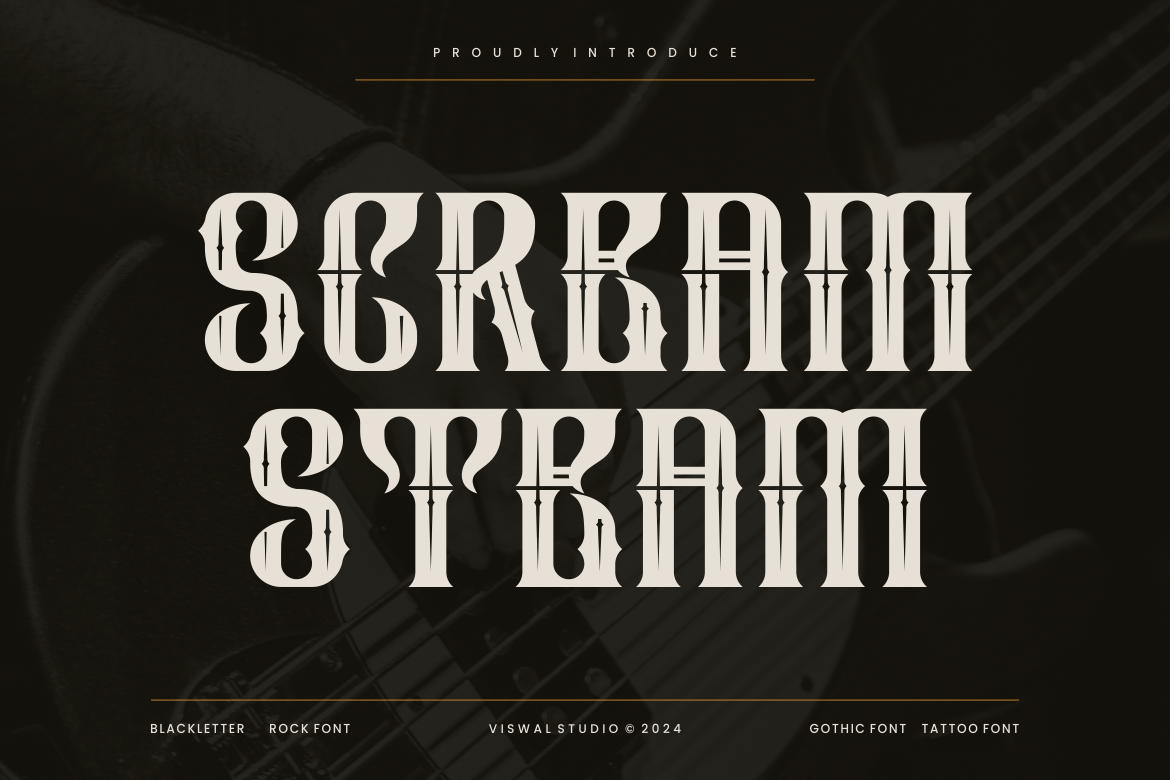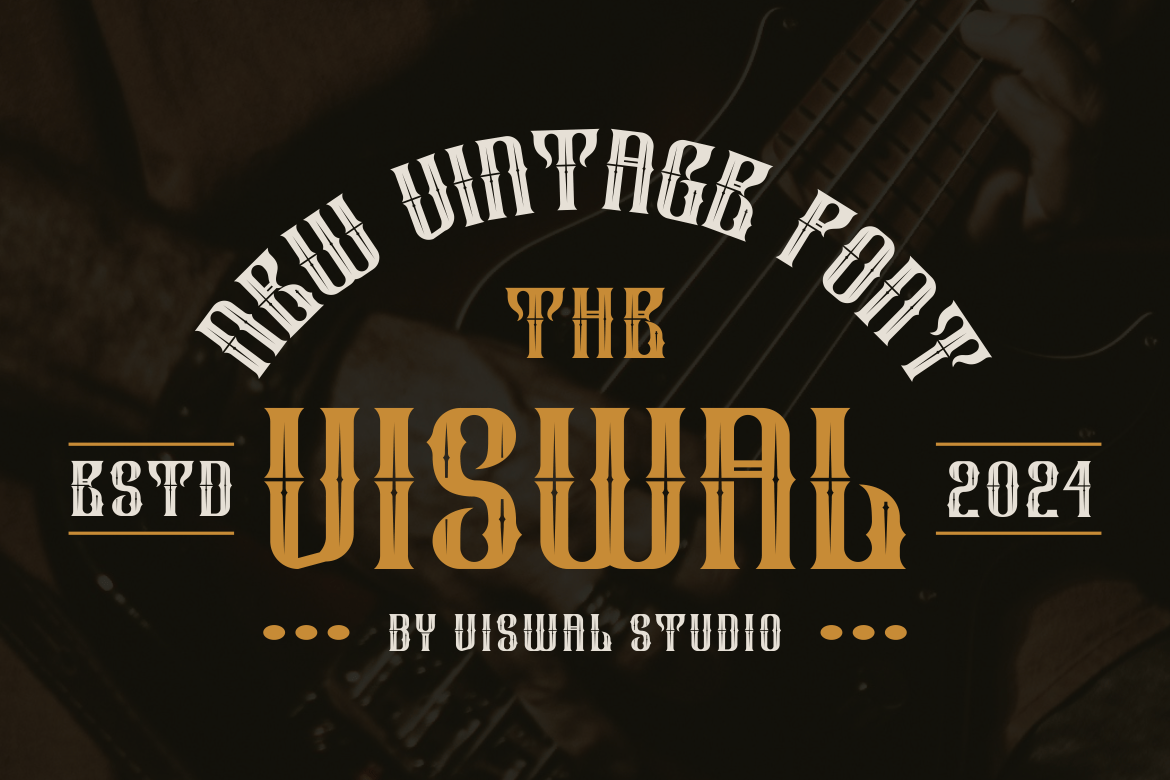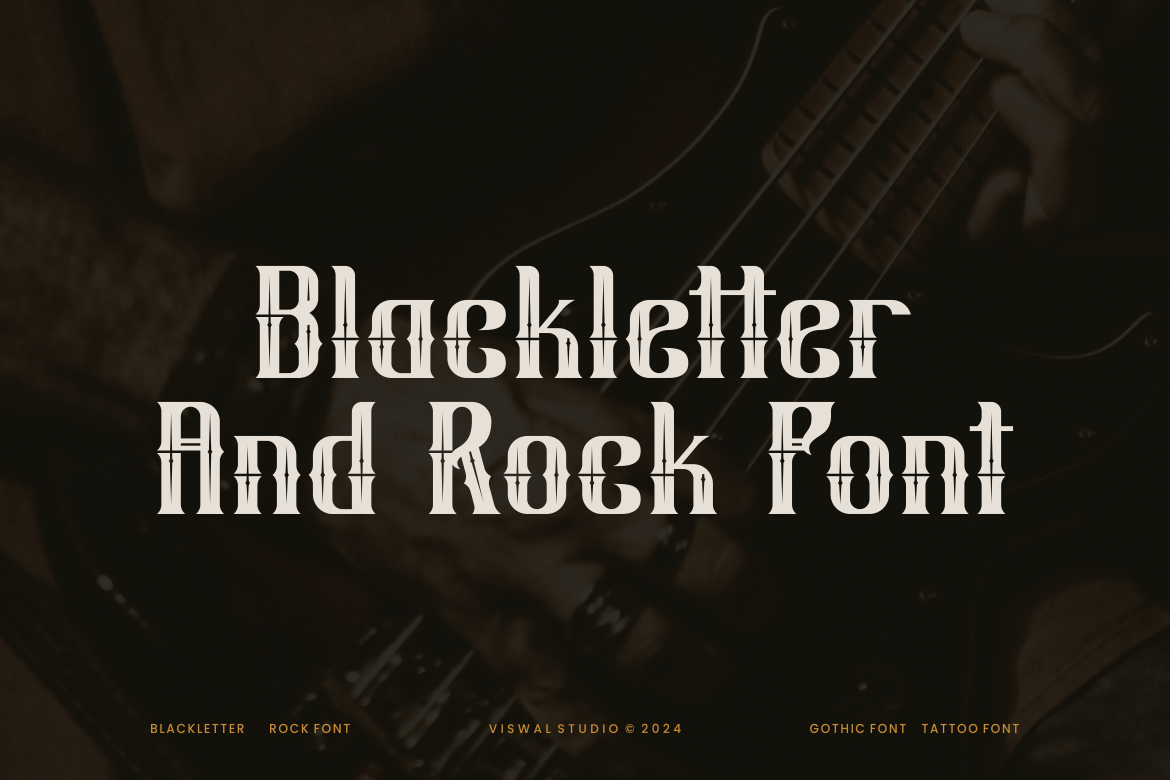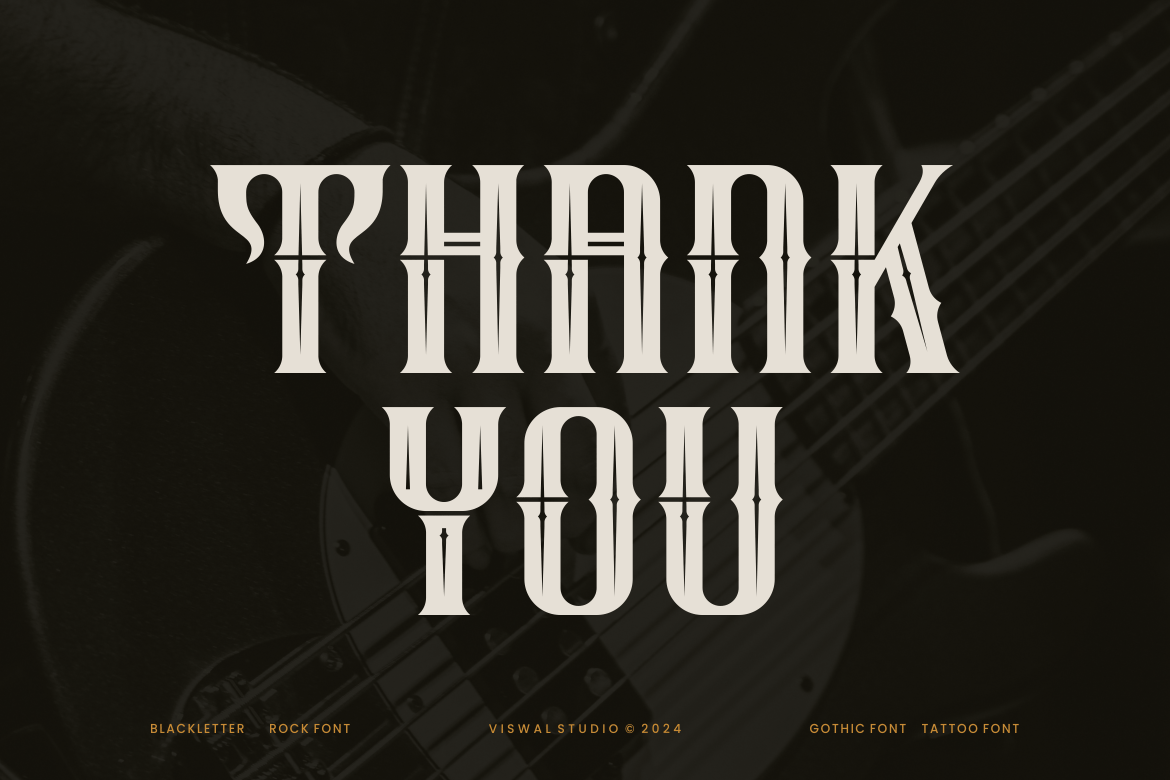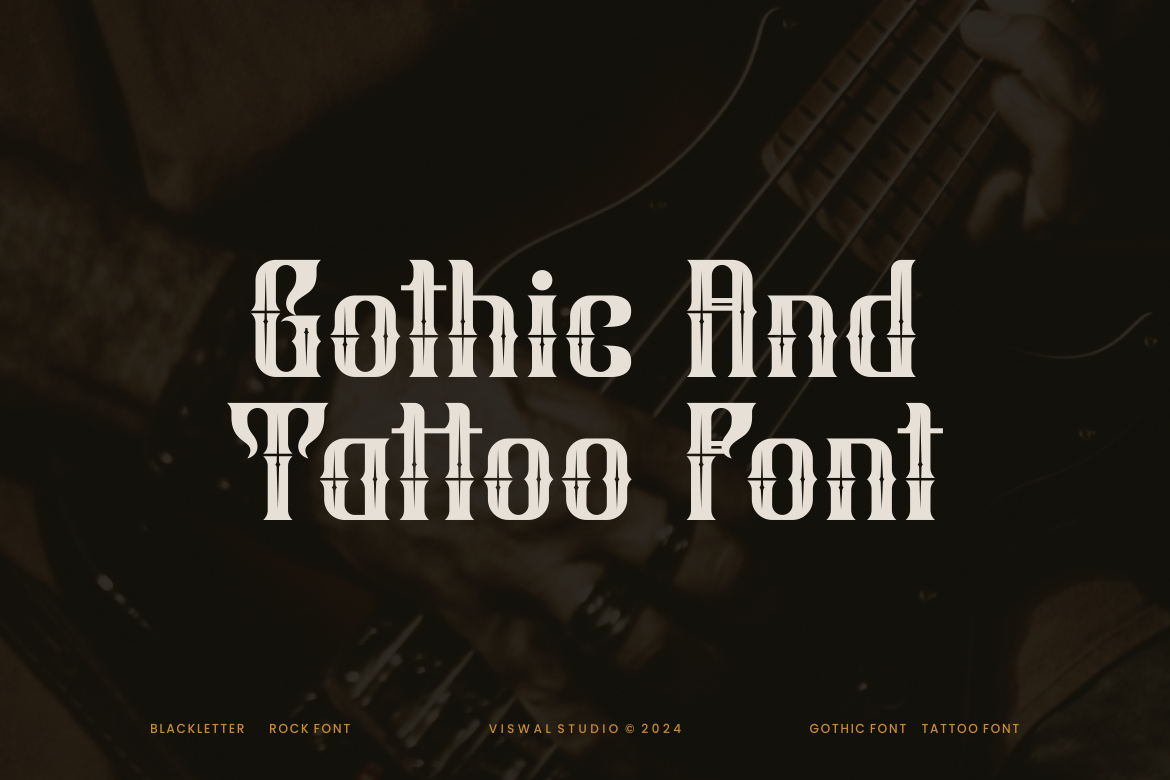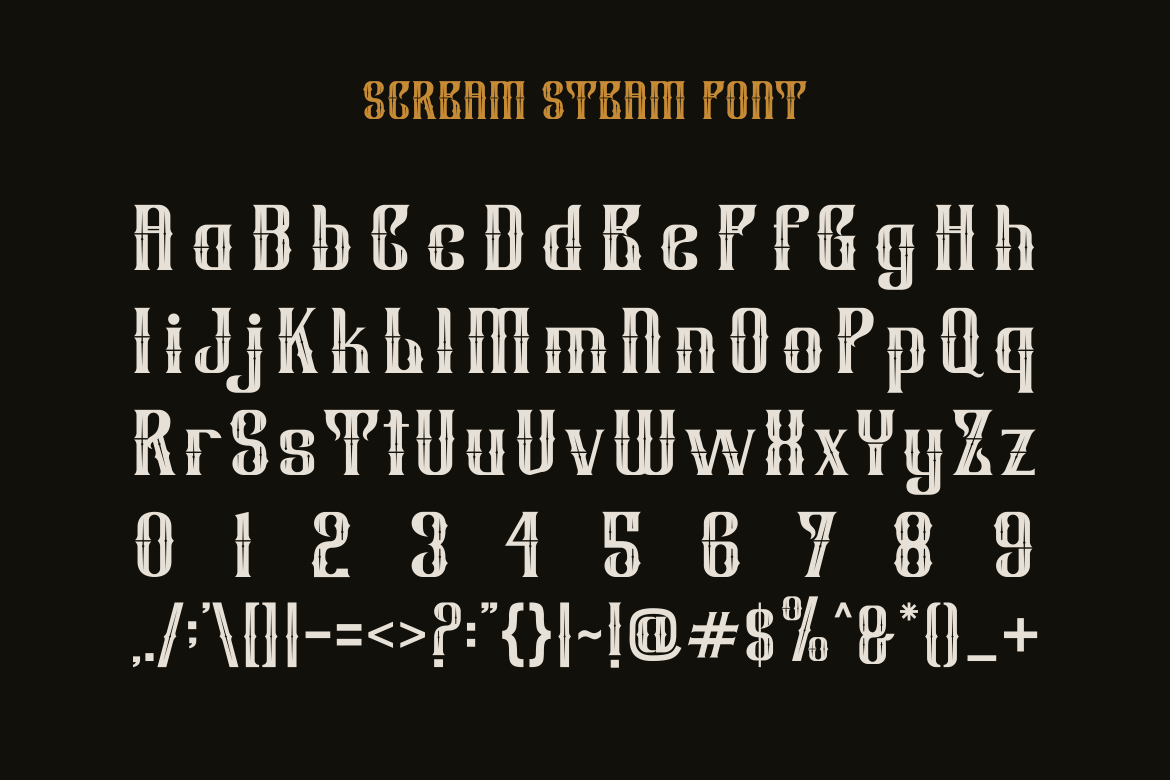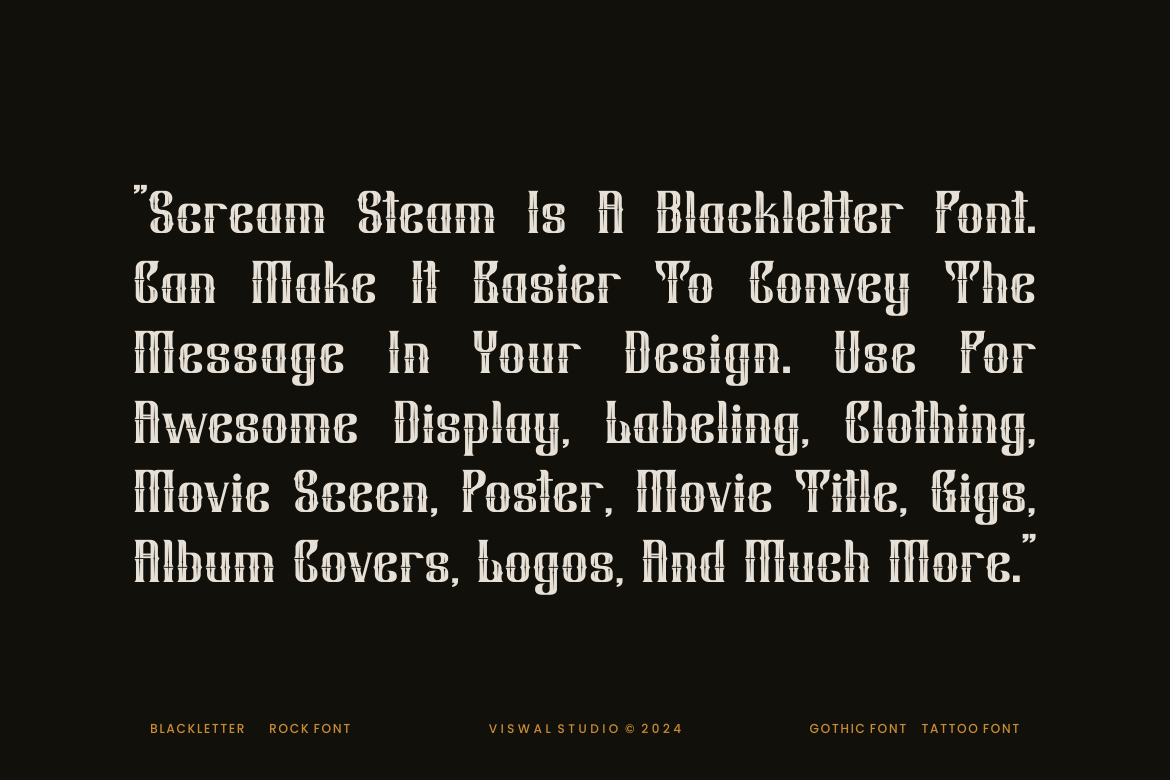
Scream Steam – Blackletter & Gothic Font
Presenting Scream Steam – Font is suitable for badge, labels, logo, branding, magazine, poster and etc. Our fonts have Uppercase & Lowercase, Numeral & Punctuation, Multilingual support and Opentype Features. For Amazing designs you can mix with other fonts as a complement.